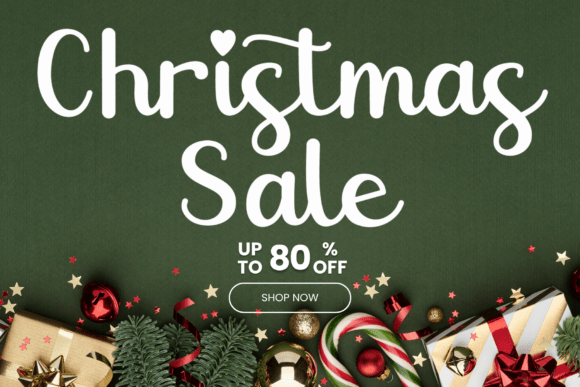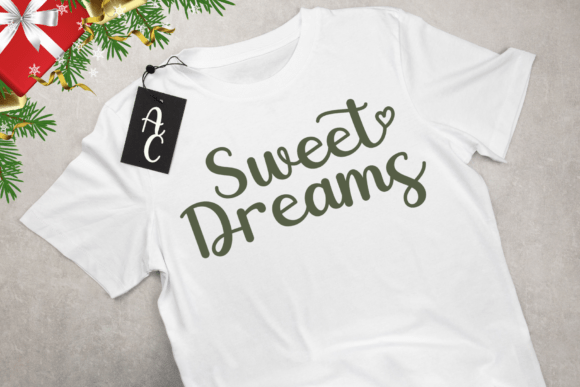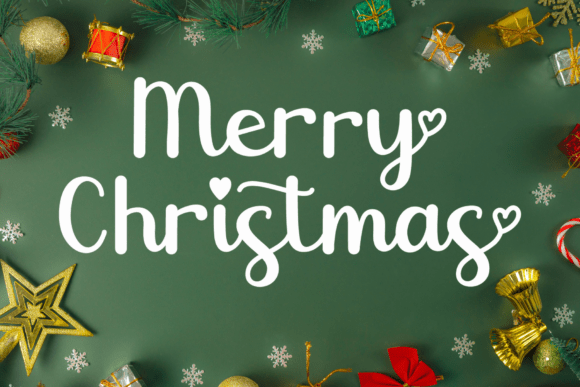
Introduction to Christmas Heartscript Font
As you sit by the fireplace, surrounded by twinkling lights and the soft glow of Christmas decorations, you can’t help but feel inspired to create something special. Maybe it’s a handmade card for a loved one, or a festive social media post to share with friends and family. Whatever your creative project may be, you’re looking for a font that captures the essence of the season – a font that feels like a warm hug on a cold winter’s night.
Enter the Christmas Heartscript Font, a joyous handwritten font that’s sure to bring a touch of festive cheer to your designs. With its elegant yet playful strokes and signature heart dots on i and j, this font is a game-changer for designers looking for a high-quality, free download that adds a romantic twist to their work.
Key Features of Christmas Heartscript Font
- Unique, hand-drawn design perfect for creative projects and holiday-themed designs
- High-quality font with a transparent background, ideal for use on various design resources
- Includes a range of sizes and resolutions to accommodate different design needs, from small graphics to large-scale prints
- Features a beautiful, cursive script style with a festive twist, making it perfect for Christmas and holiday-themed designs
- Can be used for a wide range of creative projects, from invitations and cards to packaging and branding materials
Honest Review: Christmas Heartscript Font
I recently stumbled upon the Christmas Heartscript Font, and I must say, it’s a high-quality design resource that’s perfect for any creative project. As a designer, I appreciate the attention to detail that went into crafting this beautiful font.
- ✨ The font’s unique, handwritten style adds a touch of elegance to any design project.
- ✨ The transparent background makes it easy to use in various design contexts.
However, I did notice a few limitations:
- ⚠️ The font may not be suitable for large-scale text, as it’s a more decorative style.
Overall, I’m impressed with the Christmas Heartscript Font. It’s a great addition to any designer’s toolkit, especially during the holiday season. With its high-quality design and transparent background, it’s perfect for creating festive and creative projects. Whether you’re a seasoned designer or just starting out, this font is definitely worth checking out.
To get the most out of the Christmas Heartscript Font, use it in conjunction with other design elements that complement its high quality and transparent background. Experiment with different font sizes and colors to create a visually appealing design. You can also use this font in various creative projects, such as greeting cards, posters, and social media graphics.
The Christmas Heartscript Font is perfect for various use cases, including holiday greeting cards, festive invitations, and seasonal social media posts. Its high quality and transparent background make it an excellent design resource for any creative project that requires a touch of holiday cheer.